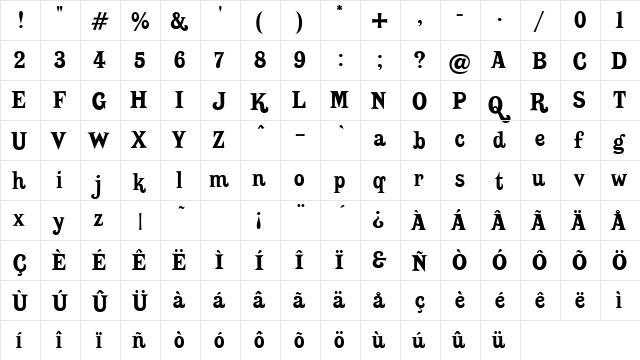
Putain Regular
Design Context for Putain Typeface
Putain offers clean, dependable letterforms without strong stylistic allegiance, making it a practical choice for designers who need flexibility.